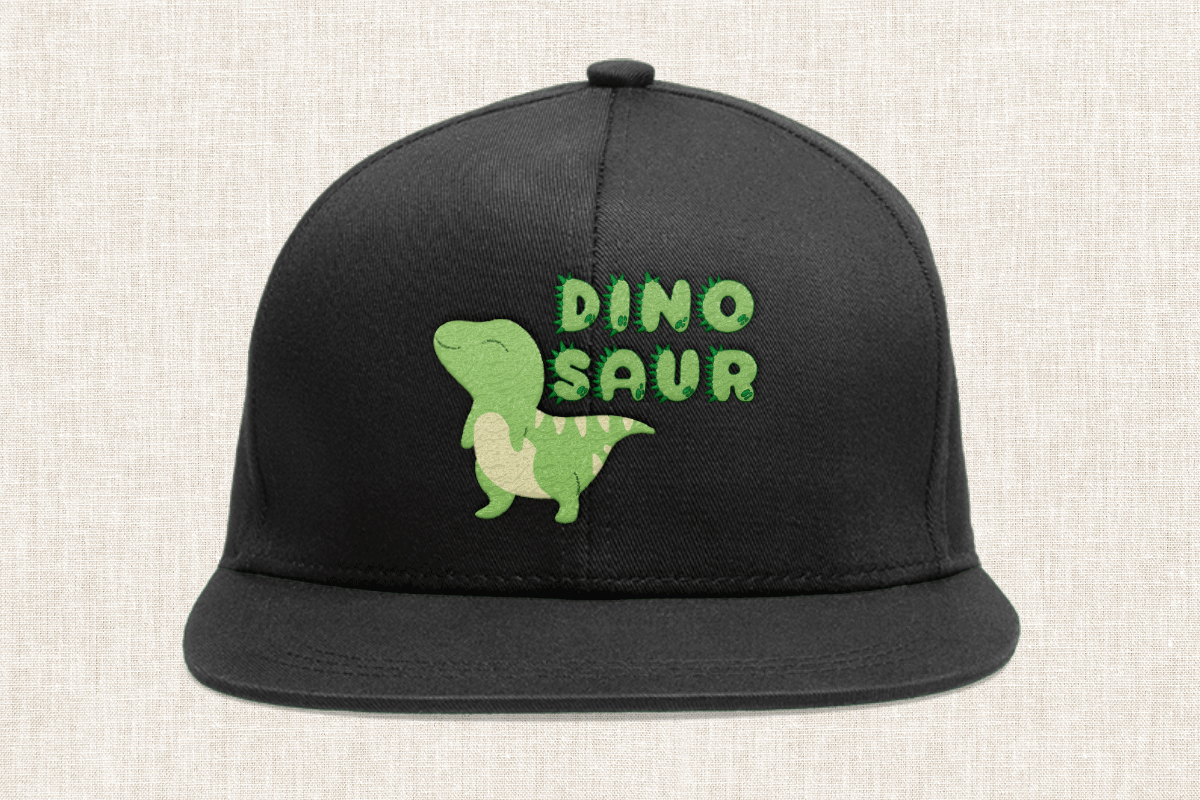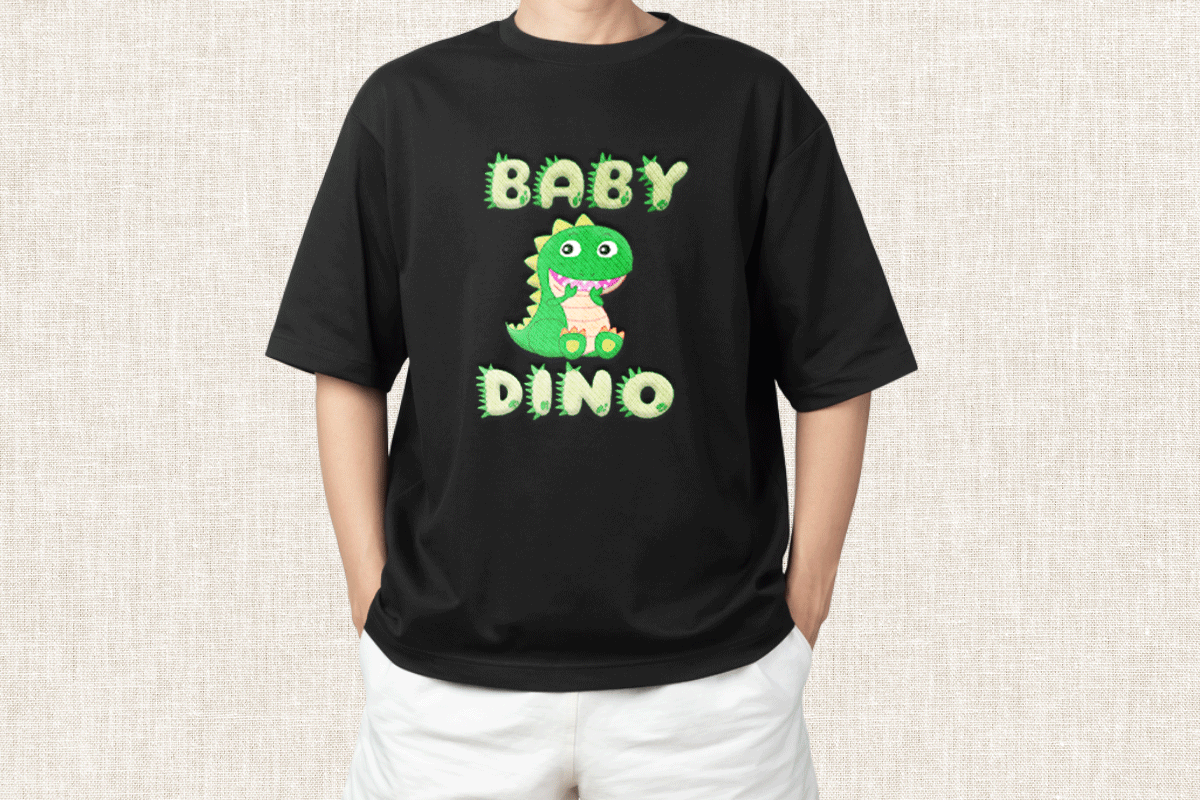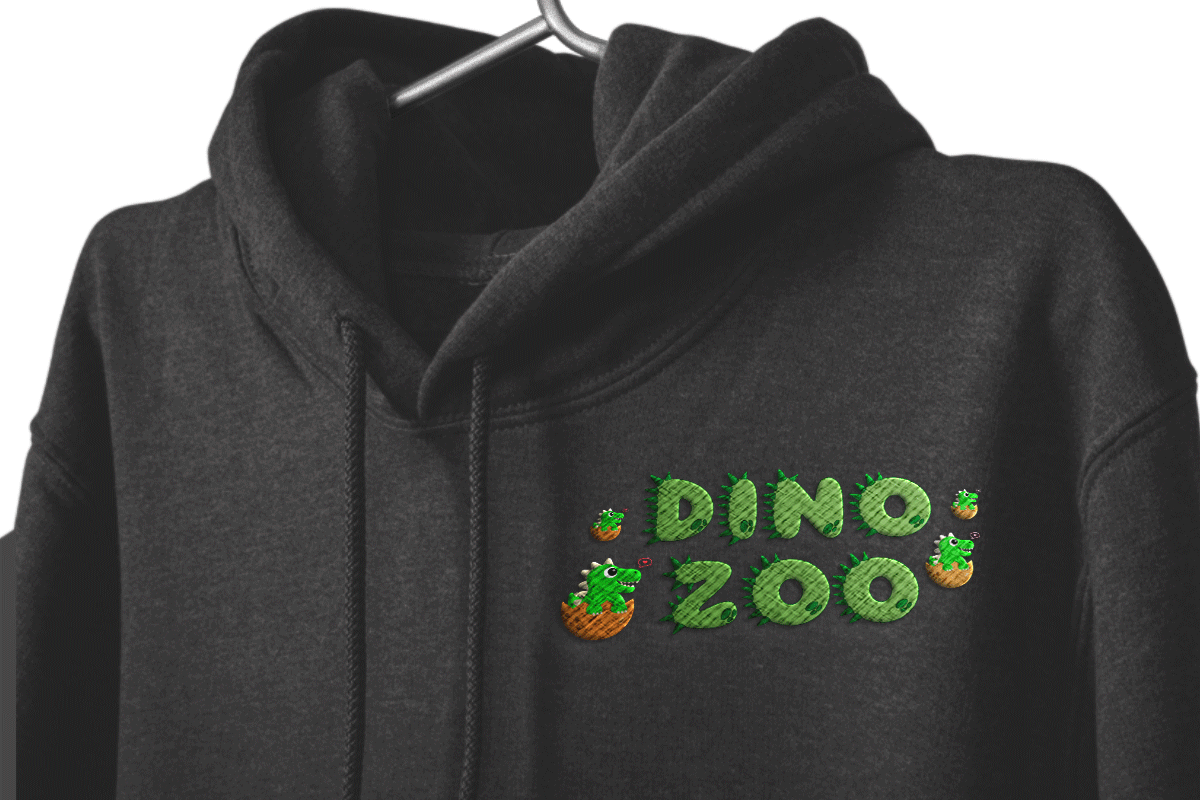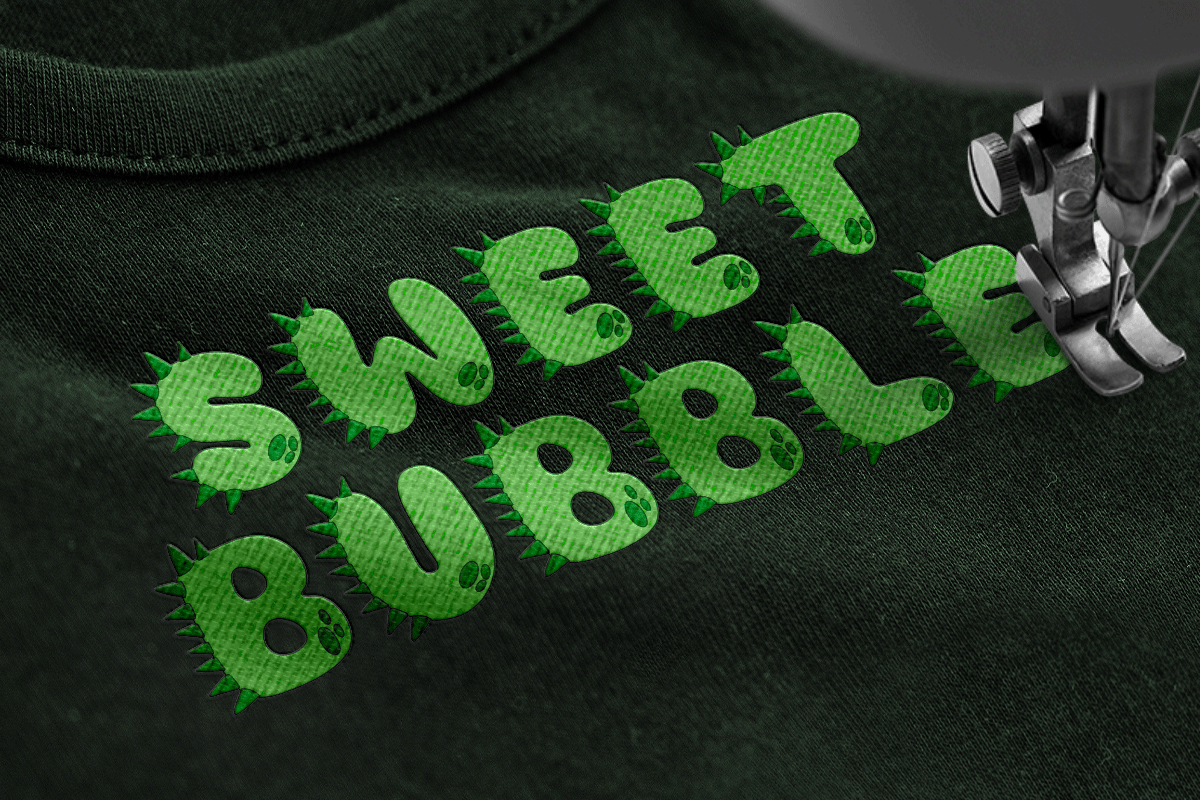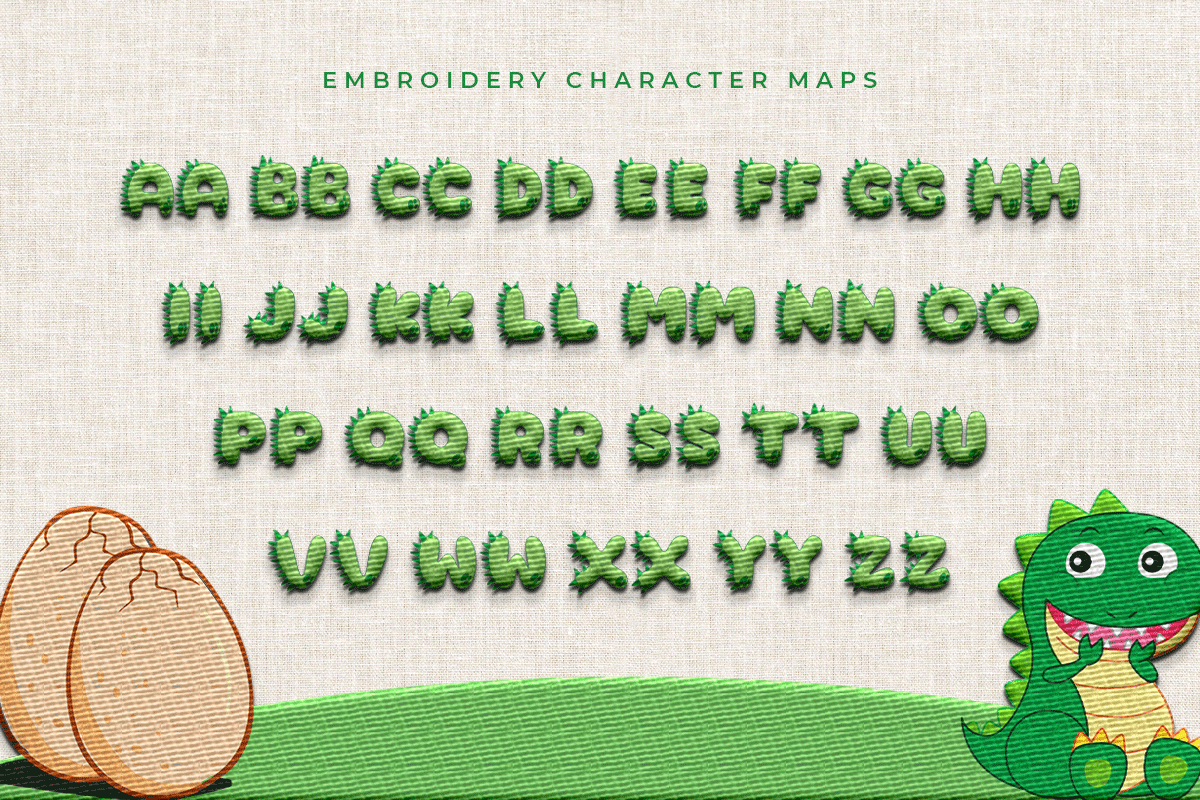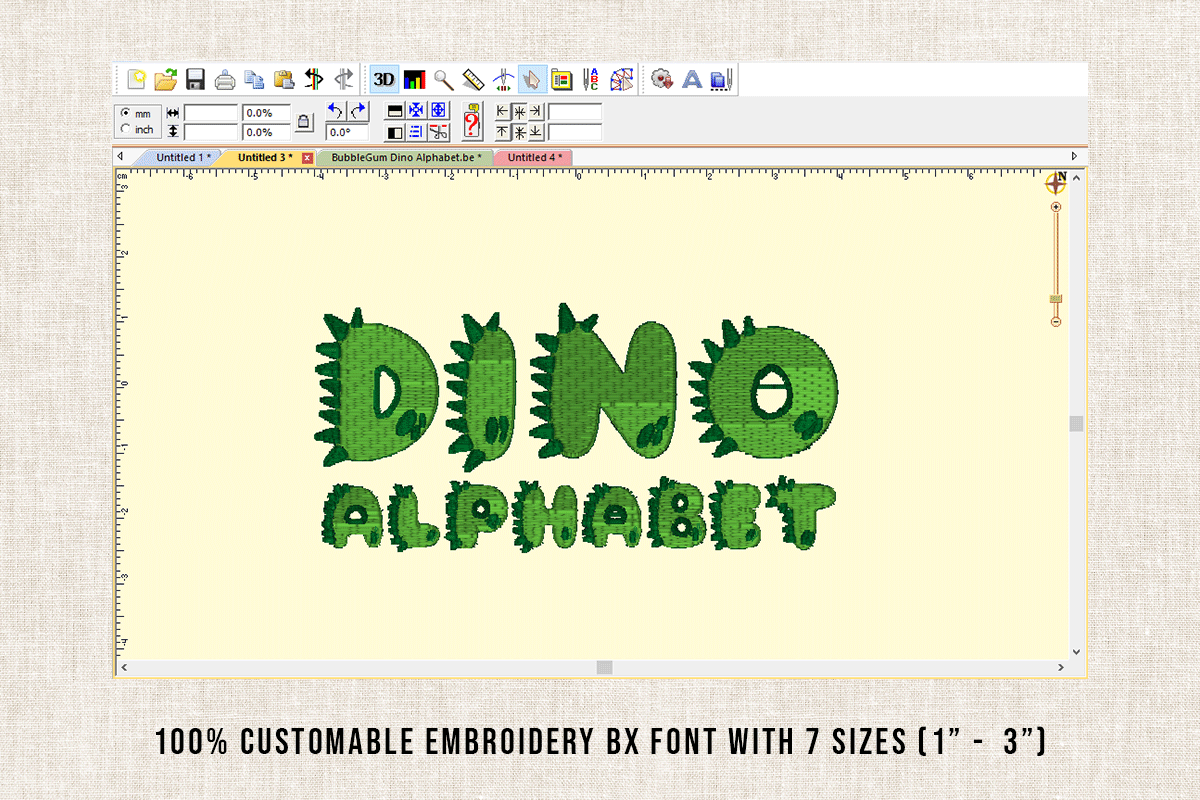
Decorative Dino Alphabet Embroidery Font is a uniquely combined typeface concept. Created with a dinosaur theme, this font is perfect for all kinds of kid activities. Unique, interesting, and funny letter shapes will leave an unforgettable impression on the children's minds.
You can use this Decorative Bubble Gum Dino Alphabet Font for embroidery and digital font. This font can use for school supplies, bags, pencil cases, story books, textbooks, and decorations on school walls. Decorative Dino Alphabet Embroidery Font will be fun, and eye-catching typographic design will grab a child's attention instantly. For this reason, we recommend using this typeface in any product intended for children, such as clothing, bag, jacket, t-shirt, and hat.
Decorative Dino Alphabet Embroidery Font on the digital can also be used effectively in the digital world. This font is also suitable for individuals and companies who want to create games for children or those who want to produce a movie or video streaming service for young audiences.